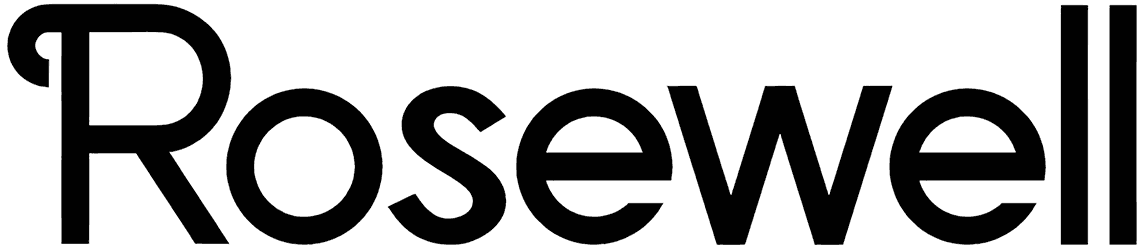
Rosewell Font
Modern and modest styles can be a smart choice for a design where you want all the attention to be on the content. This beautiful sans-serif font is one of these items and can be used for any subject. House Rosewell font…
Modern and modest styles can be a smart choice for a design where you want all the attention to be on the content. This beautiful sans-serif font is one of these items and can be used for any subject. House Rosewell font on your future layouts, such as packaging, branding, flyers, or along with others, and give them a confident vibe.